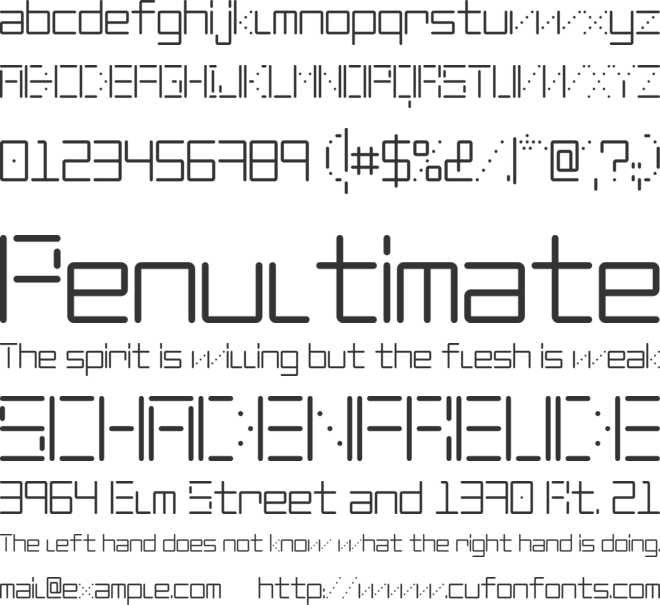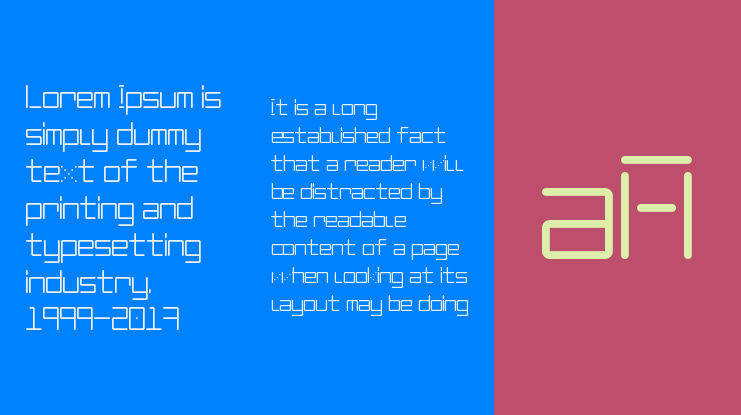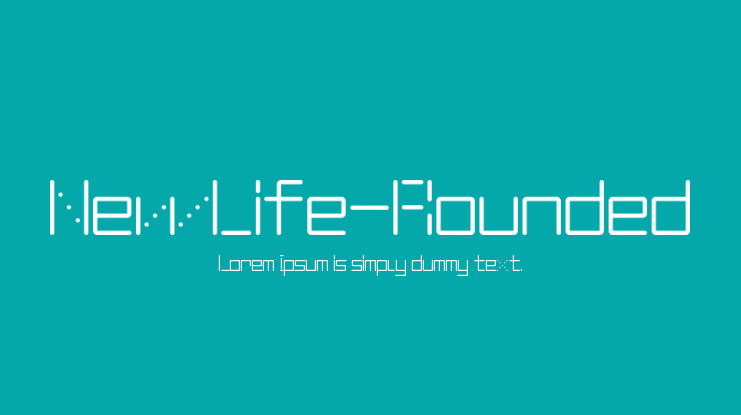
NewLife-Rounded Font Family
NewLife is a typeface with variable width characters created from a matrix of squares (17x21).
The NewLife typeface is available in two versions:
- NewLife-Square (with square ends).
- NewLife-Rounded (with rounded ends).